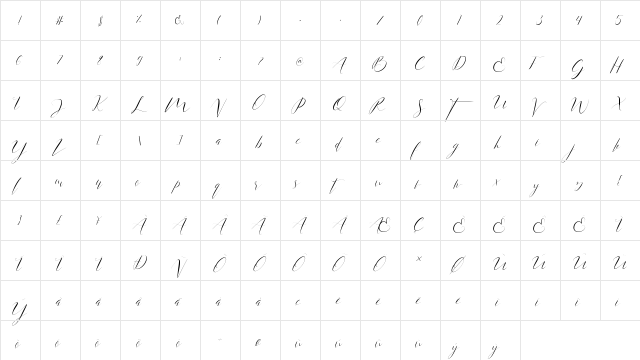
Anita Jane Regular
Design Context for Anita Jane Typeface
Anita Jane is a composed and adaptable typeface that performs quietly and consistently across a wide range of design contexts.
Pro Tip: Pair Anita Jane with a font of contrasting weight or personality to build a more expressive typographic hierarchy.